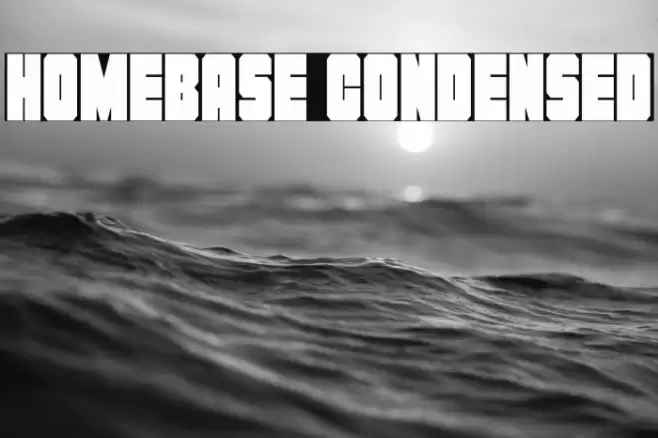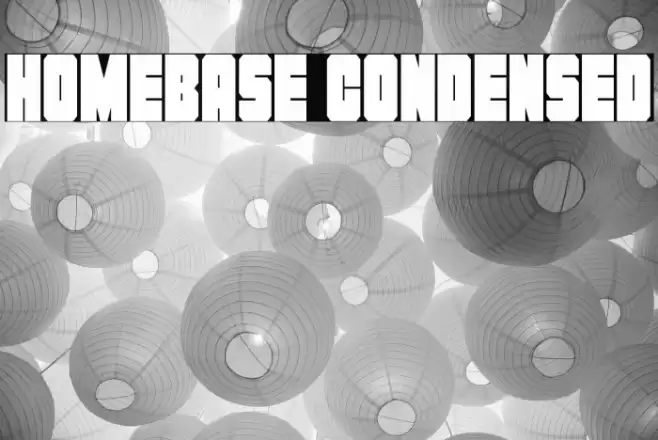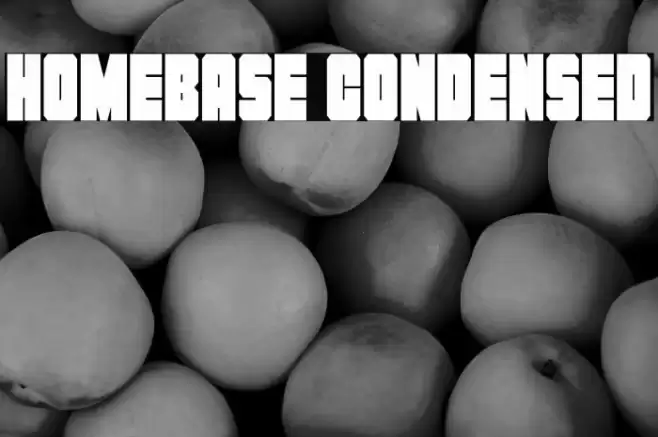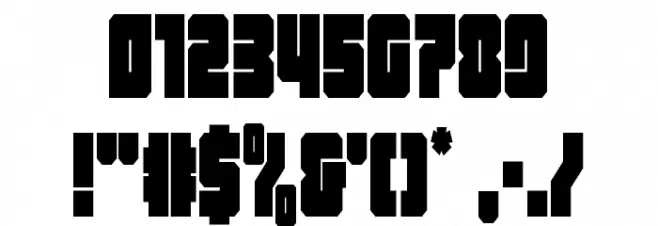
Homebase Condensed Font
Homebase Condensed Description
This font features a bold and striking design with a condensed width, making it highly impactful and attention-grabbing. The characters are blocky and geometric, with sharp angles and a uniform thickness throughout. The uppercase and lowercase letters maintain a consistent style, while the numerals and special characters complement the overall aesthetic. Its strong presence and modern appeal make it suitable for various design applications where a bold statement is needed.
- Proposed Projects: Ideal for posters, headlines, branding, and any project requiring a strong visual impact.
- Character Spacing: Tight